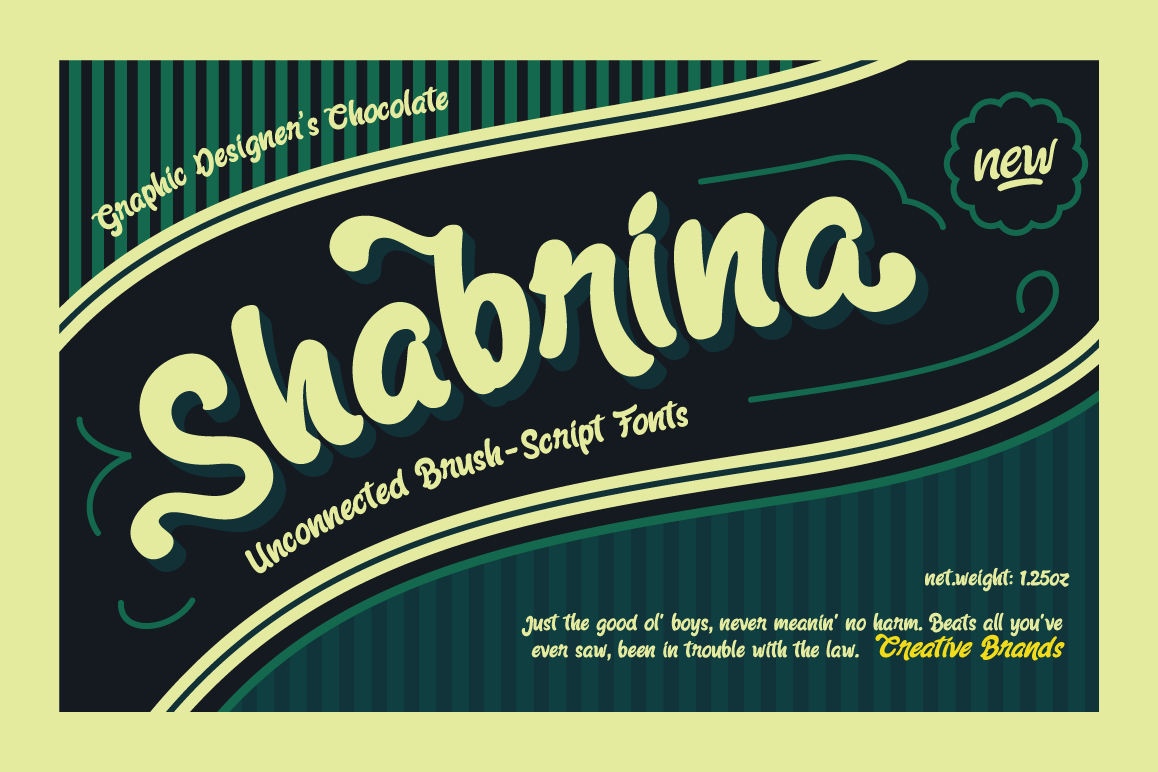
Shabrina
Shabrina Bold
Shabrina Regular
Shabrina is an unconnected brush-script font family inspired by a chocolate biscuit
packaging that looks beautiful, yet yummy, fresh and delicious!
Comes with bold character, it is perfect for packaging, advertising, editorial and
publishing, logos and branding.